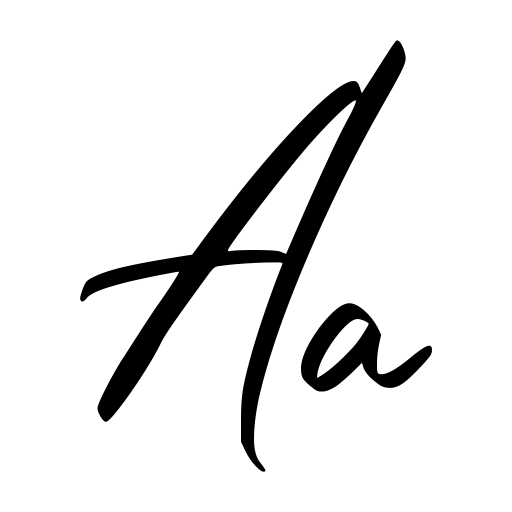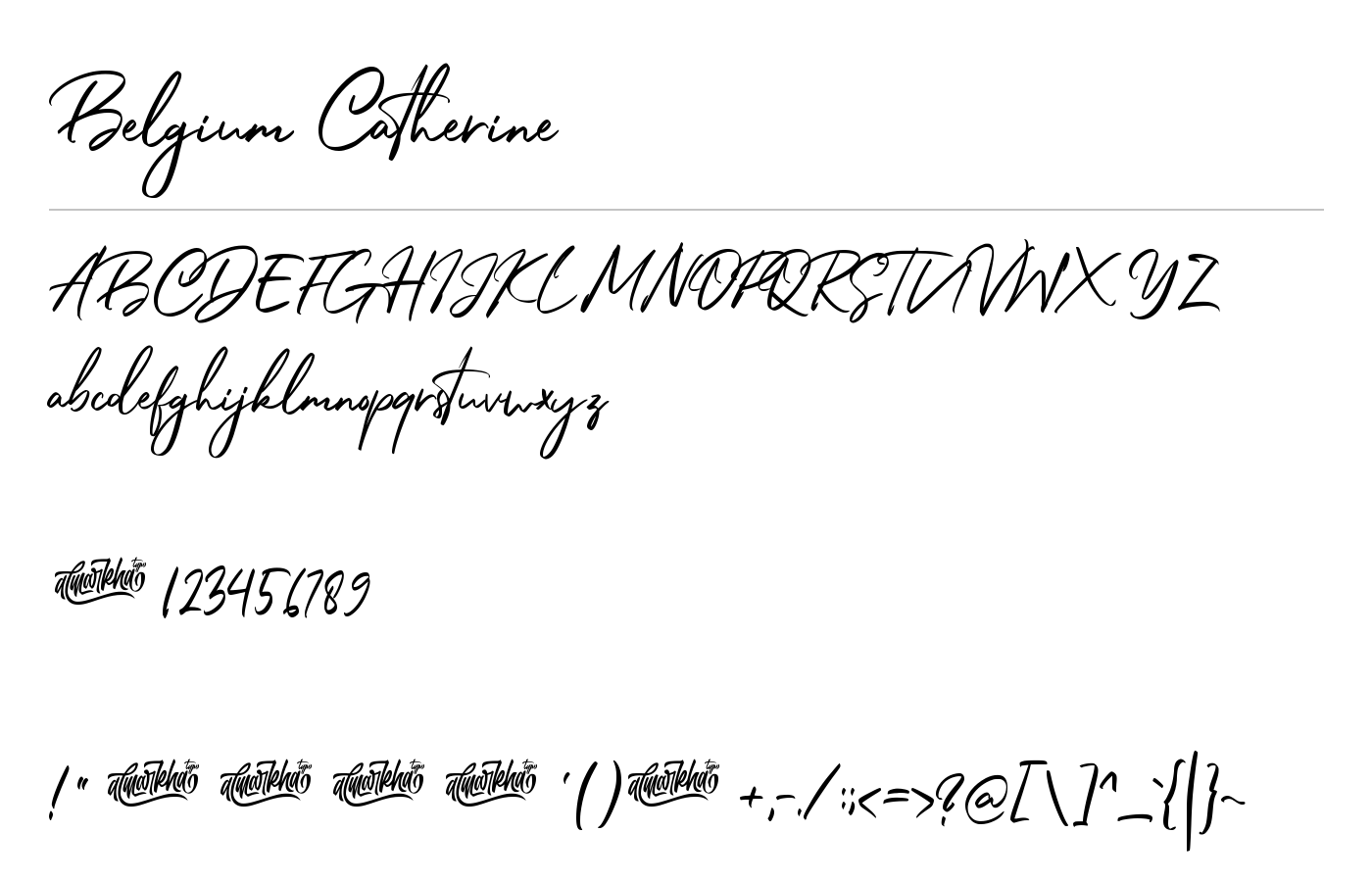
Belgium Catherine is a stylish script font that captures a handwritten, elegant feel with its flowing, slender letterforms and smooth, natural curves. Its slender weight and airy spacing make it perfect for adding a personal, sophisticated touch to invitations, branding, and creative projects where a refined yet approachable look is desired. This font works well in designs that aim to convey grace, warmth, and artistic flair.
Belgium Catherine Font
About Belgium Catherine Font
| Designer | Almarkhatype 2020 - Abdul Malik Wisnu |